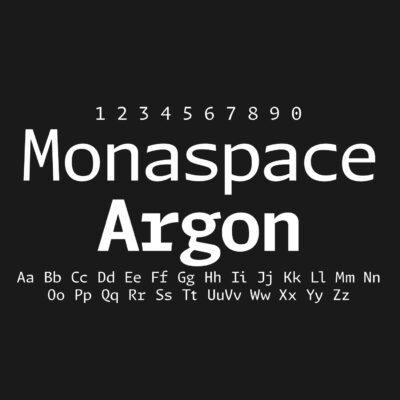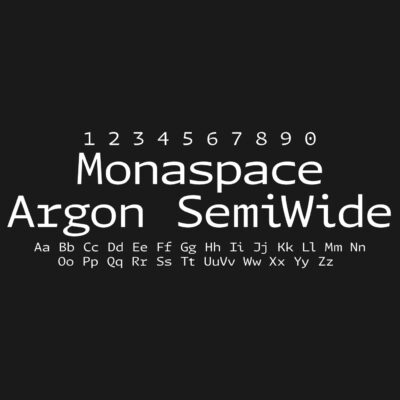
Monaspace Argon Wide Font Family Free Download
Monaspace Argon Wide is a wide-width version of the Monaspace Argon coding font, designed for developer-focused typography, technical layouts and readable code presentation. Its wider letterforms give code, terminals and interface previews a more open visual rhythm, making it useful for code editors, terminal screenshots, software documentation, developer portfolios, programming tutorials, UI design and technology-related visual projects.
Developer: GitHub